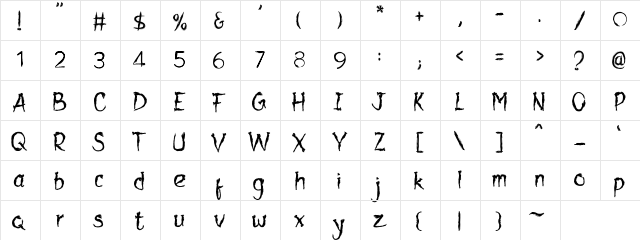
Arafura Regular
| Foundry | Lambert Wahang |
| Designer | Lambert Wahang |
Design Context for Arafura Typeface
Arafura is a composed and adaptable typeface that performs quietly and consistently across a wide range of design contexts.